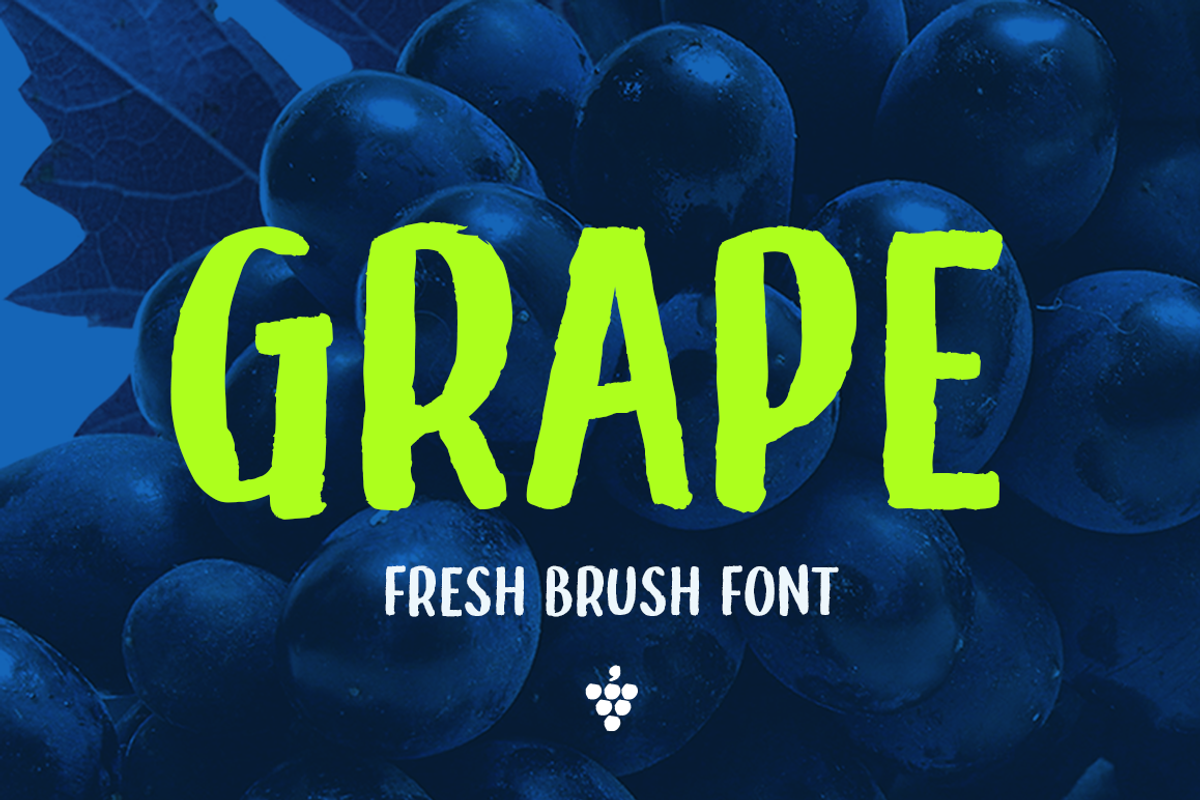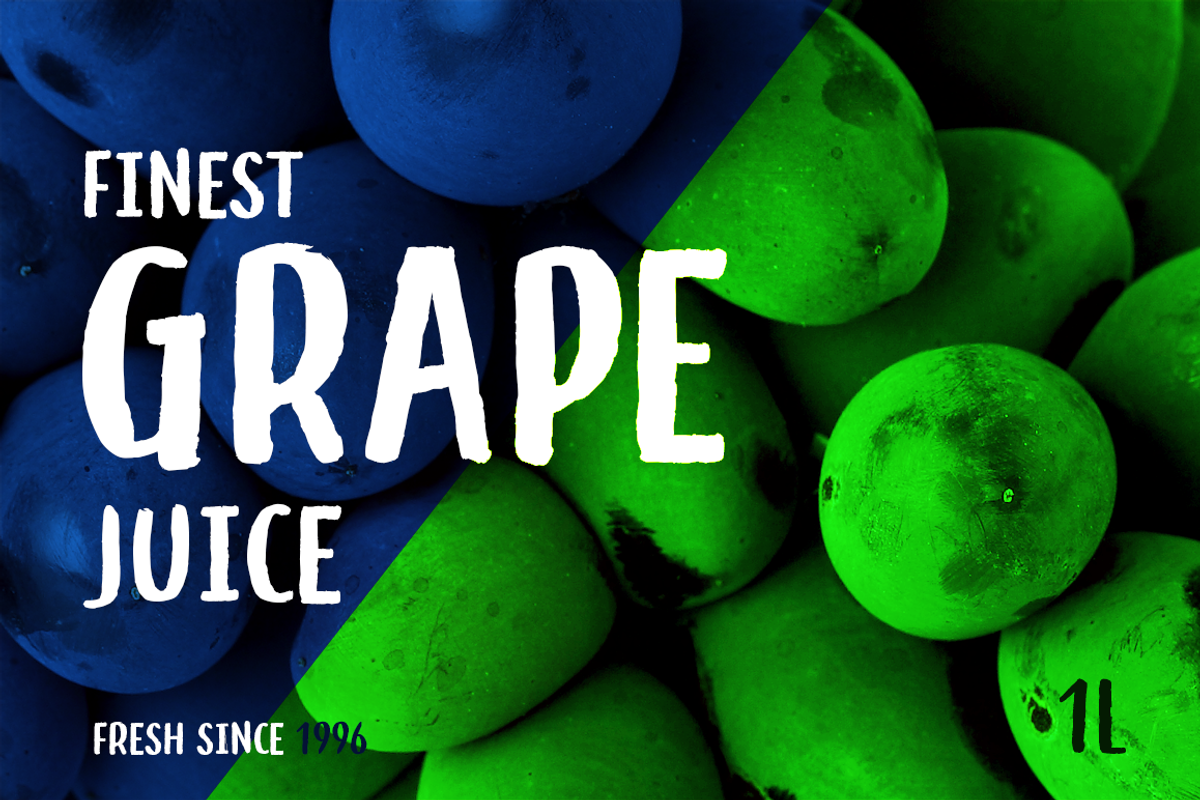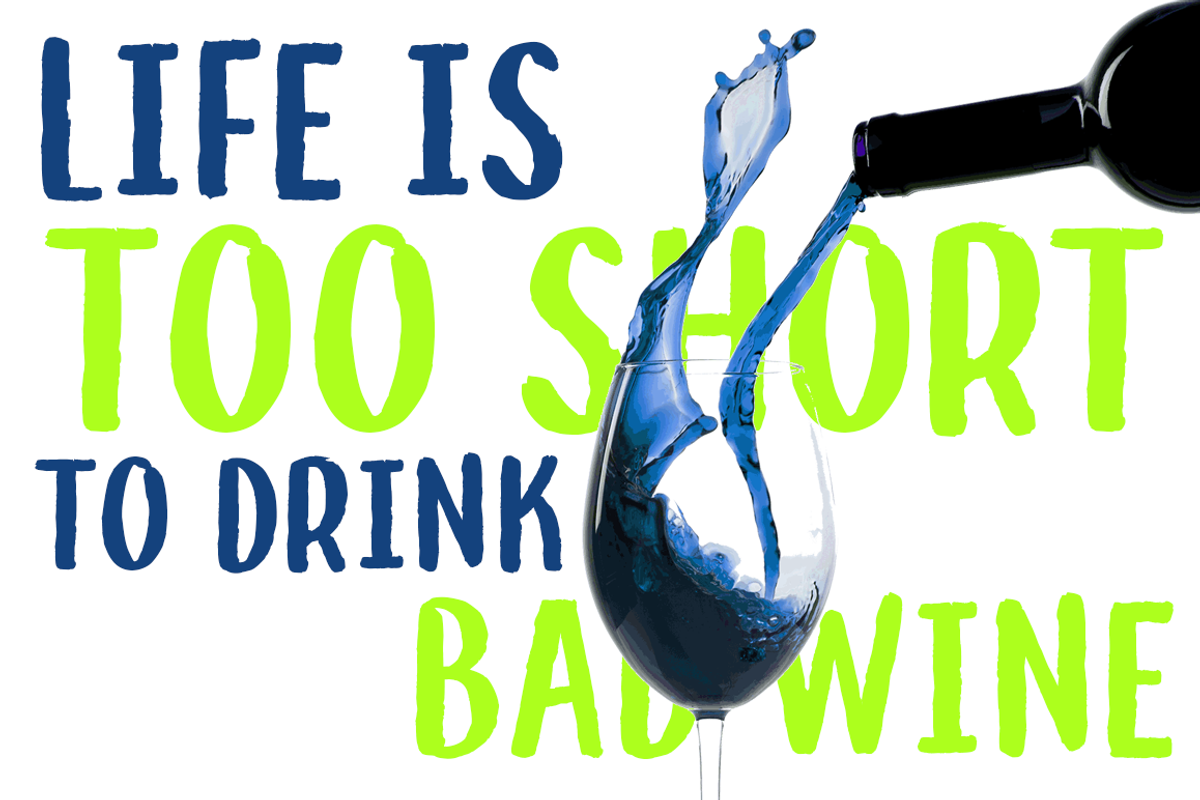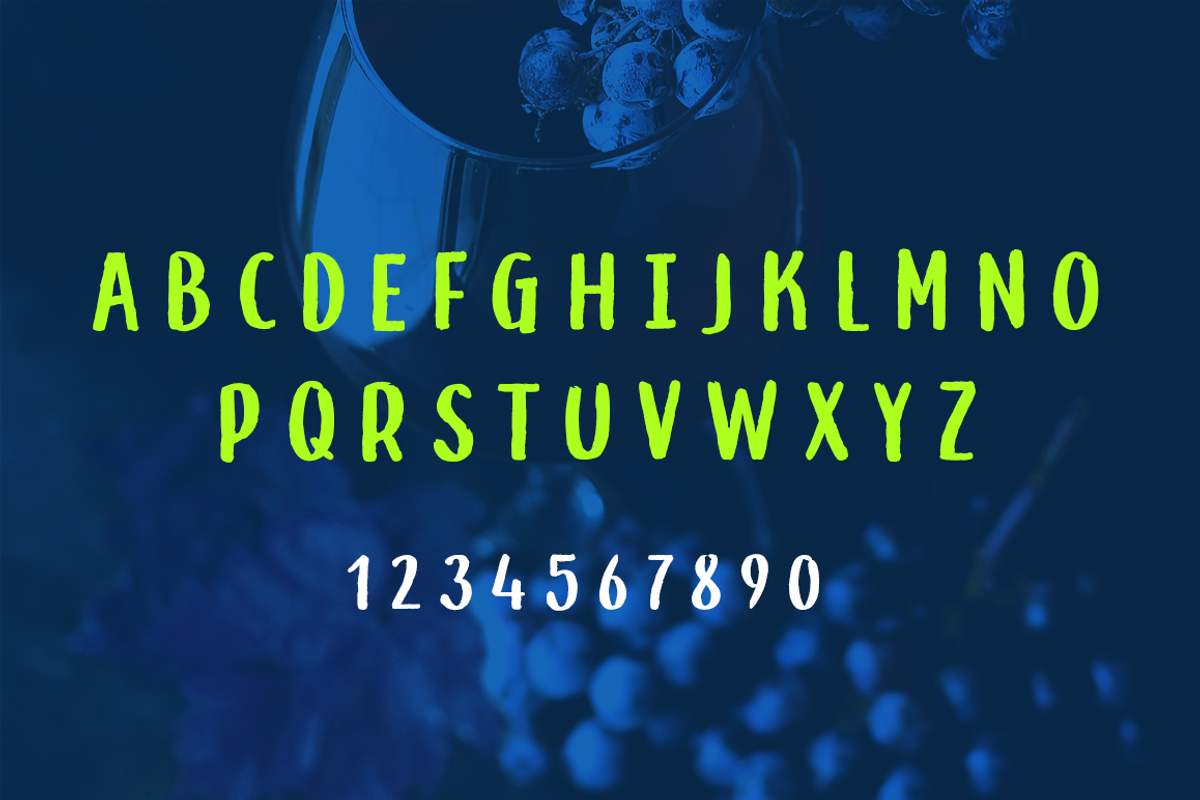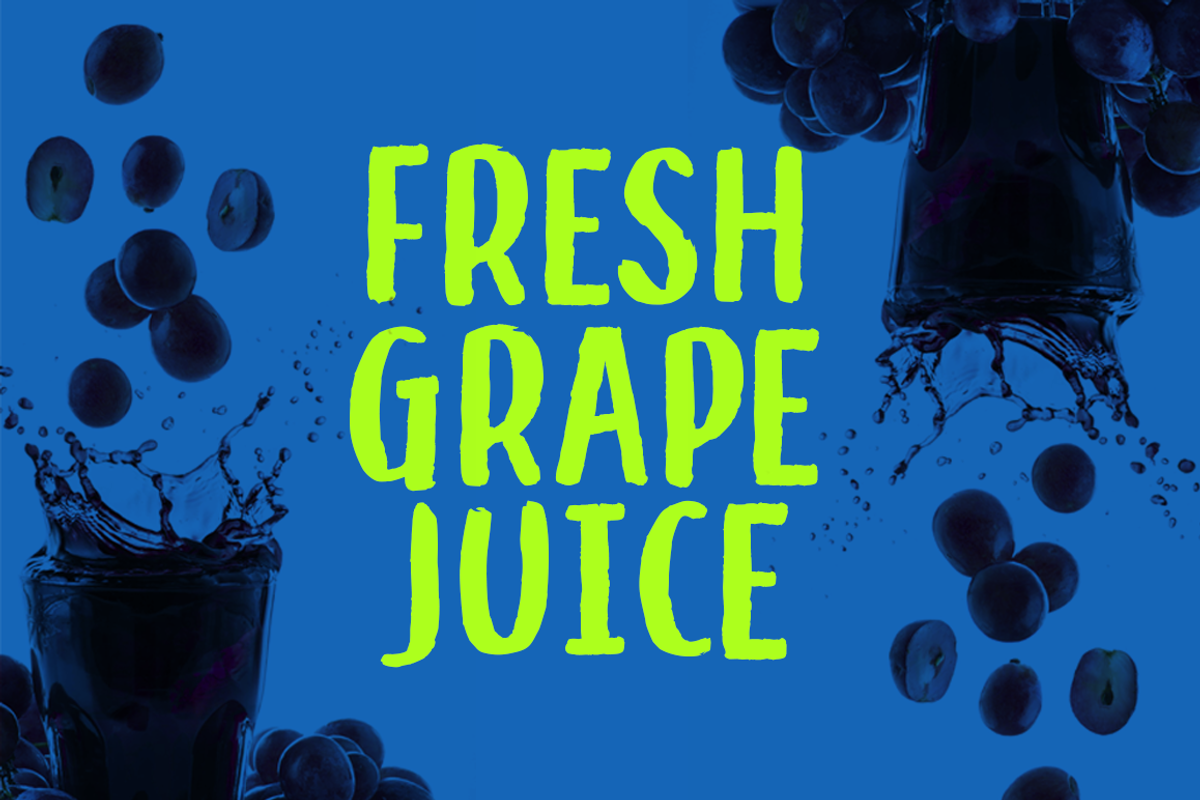
Grape - A fruity fresh brush font
Enjoy the new brush-styled font project from phitradesign fonts. Its premium and vintage designed letters are perfect for posters, logos or bold headlines. You can use it for a lot of things, so it should not be missing in your font collection. Give it a try and buy a commercial license including the full set of over 300 glyphs and an italic version right here on creative market!